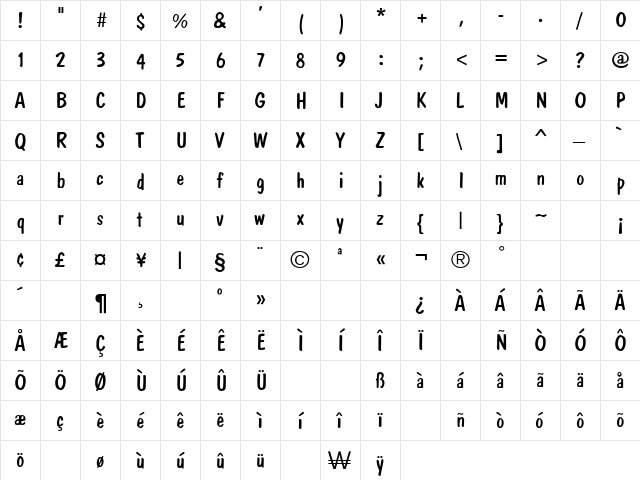
Dominion Regular
Design Context for Dominion Typeface
Dominion is a composed and adaptable typeface that performs quietly and consistently across a wide range of design contexts.